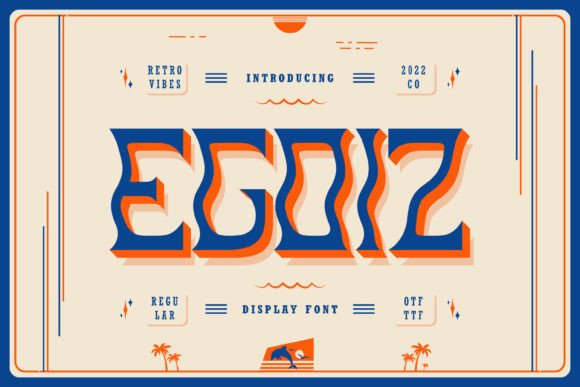
Dive into a world of enchantment with Egoiz Font, the enchanting display font that captivates and inspires! Unleash your creativity and embark on a journey through a font family like no other! Step into a realm where imagination and design intertwine, where every character dances with grace and sophistication.
Egoiz Font, a creation of inferno.type3, is not just a font; it's an artistic masterpiece. Its wavy, whimsical, and uniquely shaped letters weave a spell of visual delight. Each character is a work of art, meticulously crafted to evoke emotions and leave a lasting impression. Experience the magic of typography as Egoiz Font transforms your designs into breathtaking creations.
Welcome to a universe of limitless possibilities, where Egoiz Font becomes your muse. Embrace the allure of a font that complements your every vision. Whether you're a designer, an artist, or simply a lover of beauty, Egoiz Font will elevate your projects to new heights. Its captivating curves and playful lines add a touch of magic to logos, branding, posters, invitations, and any canvas you can imagine.
Picture yourself captivated by the enchanting flow of Egoiz Font. Imagine your words dancing across the screen or printed page with an elegance that commands attention. Let Egoiz Font carry your message with style and flair, captivating audiences with its intrinsic charm. It's the perfect font for those who crave distinction, for those who seek to leave an unforgettable mark.
As you explore the depths of Egoiz Font, you'll discover a font family that adapts seamlessly to your creative vision. From bold and playful to delicate and refined, Egoiz Font offers a spectrum of styles to match your every mood and project. Its versatility knows no bounds, making it your go-to choice forã�‚ã‚‰ã‚†ã‚‹å ´é�¢ã�§ã�‚ã�ªã�Ÿã�®ã‚¯ãƒªã‚¨ã‚¤ãƒ†ã‚£ãƒ“ティをサãƒ�ートã�—ã�¾ã�™ã€‚